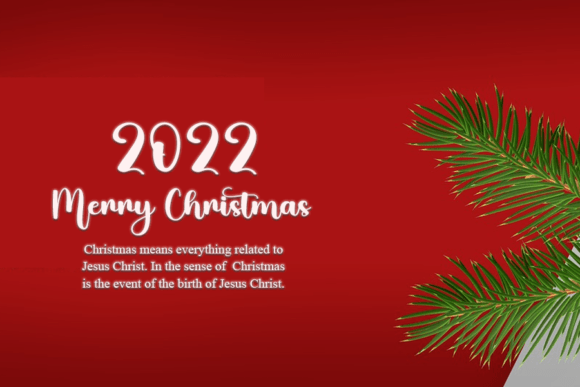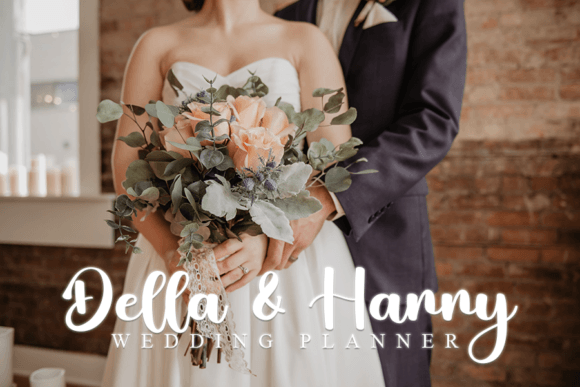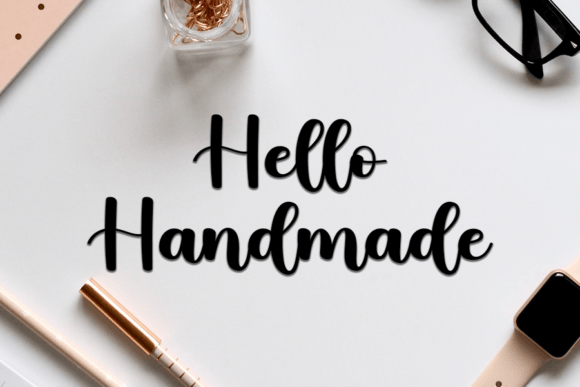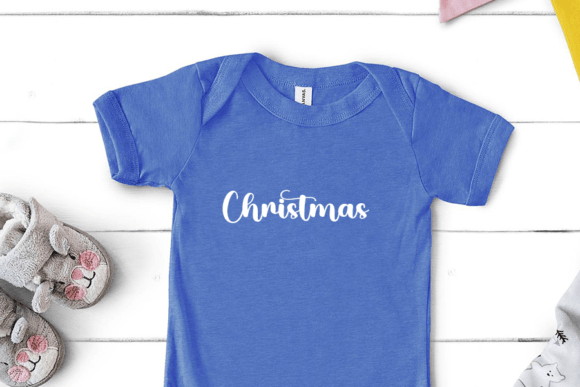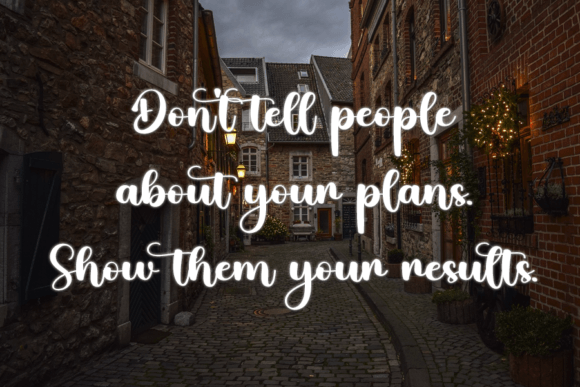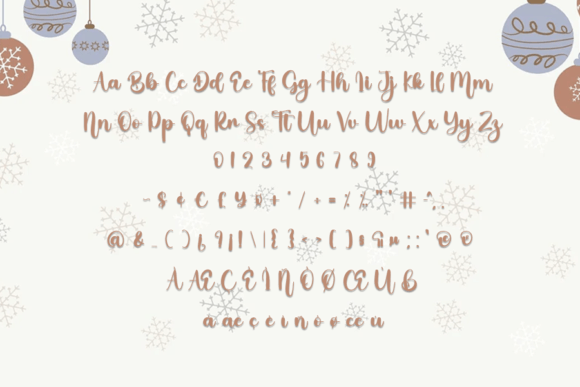
Hello Christmas Font: A Bold and Gorgeous Script Font for All Your Holiday Needs
The holiday season is upon us, and with it comes the need for festive and fun designs. Whether you’re a designer, crafter, or simply someone who loves to get creative, having the right font can make all the difference. That’s where Hello Christmas Font comes in – a bold, gorgeous script font that’s perfect for all your holiday projects. In this article, we’ll take a closer look at Hello Christmas Font, its features, and how you can use it to make your designs shine.
What is Hello Christmas Font?
Hello Christmas Font is a beautiful script font that’s designed to capture the spirit of the holiday season. With its bold and elegant letters, this font is perfect for creating stunning designs that are sure to impress. Whether you’re making greeting cards, crafting holiday decorations, or designing digital graphics, Hello Christmas Font is the perfect choice.
Key Features of Hello Christmas Font
So, what makes Hello Christmas Font so special? Here are just a few of its key features:
• Bold and Gorgeous: Hello Christmas Font is a bold and gorgeous script font that’s sure to make a statement. Its elegant letters are perfect for creating stunning designs that are sure to impress.
• Versatile: Whether you’re using it for crafts, digital design, presentations, or making greeting cards, Hello Christmas Font is the perfect choice. Its versatility makes it a great addition to any designer’s toolkit.
How to Use Hello Christmas Font
Now that we’ve covered the features of Hello Christmas Font, let’s take a look at how you can use it in your designs. Here are a few ideas to get you started:
• Greeting Cards: Create stunning greeting cards for your friends and family using Hello Christmas Font. Its bold and elegant letters are perfect for creating cards that are sure to impress.
• Digital Graphics: Use Hello Christmas Font to create stunning digital graphics, such as social media posts, blog headers, and more.
• Crafts: Add a touch of elegance to your holiday crafts, such as scrapbooking, paper crafting, and more.
• Presentations: Use Hello Christmas Font to create stunning presentations for your holiday events, such as parties, gatherings, and more.
Why Choose Hello Christmas Font?
So, why should you choose Hello Christmas Font for your holiday designs? Here are just a few reasons:
• Unique and Festive: Hello Christmas Font is a unique and festive font that’s sure to add a touch of holiday cheer to your designs.
• High-Quality: Hello Christmas Font is a high-quality font that’s designed to look great in any design.
Hello Christmas Font is a bold, gorgeous script font that’s perfect for all your holiday needs. With its elegant letters and versatile design, this font is sure to become your go-to font for all your holiday projects. Whether you’re a designer, crafter, or simply someone who loves to get creative, Hello Christmas Font is a great addition to any design toolkit. So why wait? Download Hello Christmas Font today and start creating stunning holiday designs that are sure to impress!